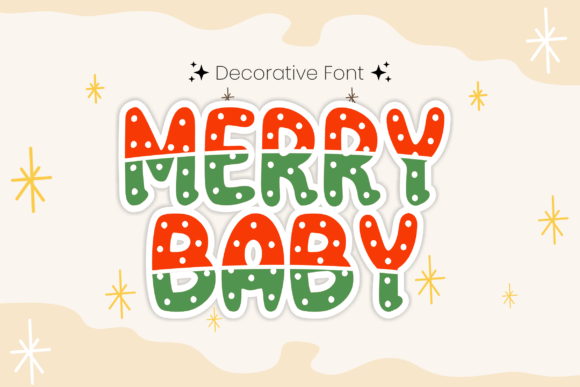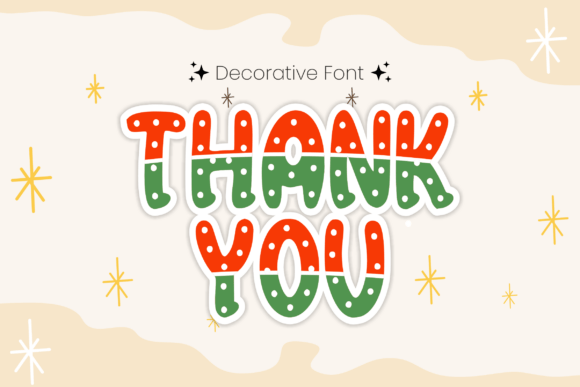
Deck the Halls with the Delightful Christmas Font
It’s that time of the year again when designers and crafters alike are on the hunt for the perfect font to add some festive cheer to their creations. I still remember the year I was working on a Christmas-themed project for a client, and I just couldn’t seem to find the right font to match the playful and joyful vibe they were looking for. After hours of scouring the internet, I stumbled upon a font that would change the game – the delightful “Christmas” font.
A Festive Font that’s Full of Cheer
The “Christmas” font is an upbeat and contemporary typeface that’s splashed with the sprightly spirit of the festive season. Each character adorns charming polka dots, effortlessly curating an easy-to-identify, jolly aesthetic that’s perfect for creating festive designs that pop. Whether you’re working on sublimation designs for t-shirts, coffee mugs, tote bags, or animations and comic titles, this font flawlessly channels festive cheer into your creations.
- ✨ The playful polka dots add a fun and whimsical touch to any design
- ✅ The font is highly legible, even at small sizes
- 🎉 It’s perfect for creating a wide range of festive designs, from kids’ party invitations to holiday-themed advertising campaigns
- 💻 The font comes with a range of OpenType features, glyphs, and stylistic alternates, making it super versatile
While the “Christmas” font is an amazing addition to any design project, there are a few things to keep in mind:
- ⚠️ Some characters may not work well at very small sizes, so it’s best to use it at larger sizes for optimal results
- 🤔 The font may not be suitable for very formal or traditional designs, as it’s quite playful and attention-grabbing
The Designer Inspiration Behind the Christmas Font
The “Christmas” font was designed with the festive season in mind. The designer wanted to create a font that would capture the playful and joyful spirit of Christmas, without being too over-the-top or tacky. The result is a font that’s perfect for creating a wide range of festive designs, from kids’ party invitations to holiday-themed advertising campaigns.
Q: What type of designs is the Christmas font best suited for?
A: The “Christmas” font is perfect for creating festive designs, such as sublimation designs for t-shirts, coffee mugs, tote bags, animations, and comic titles.